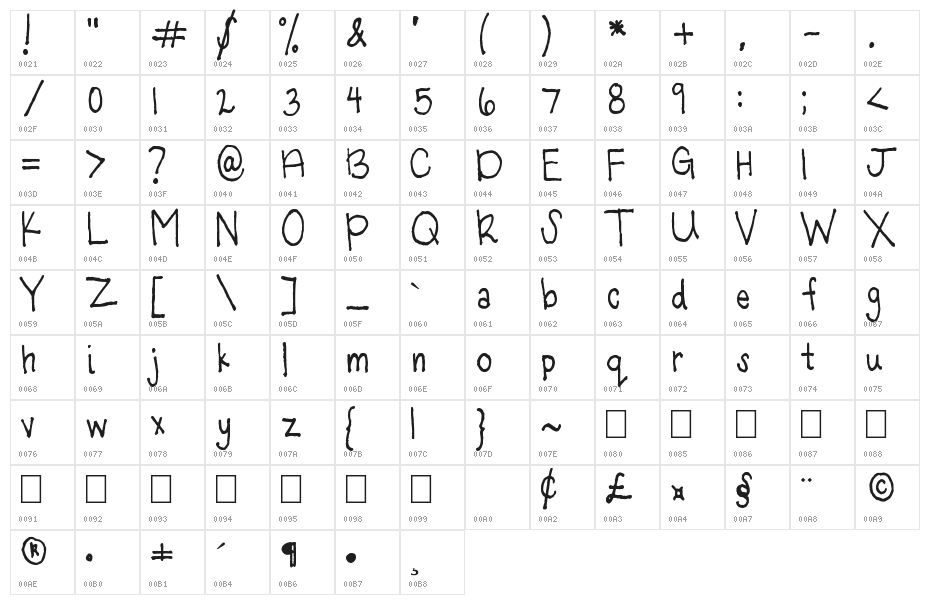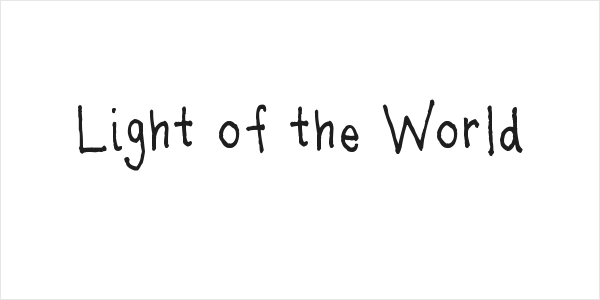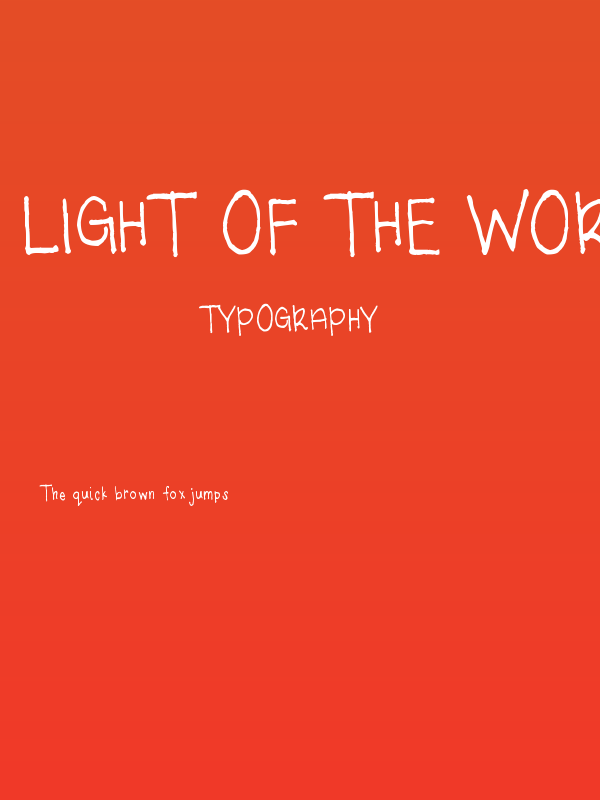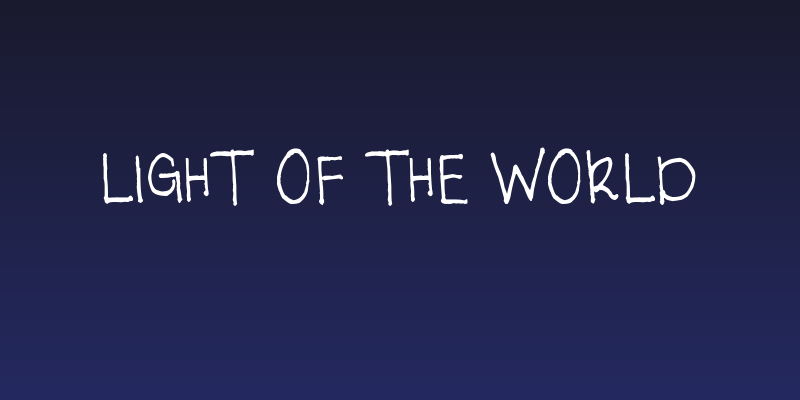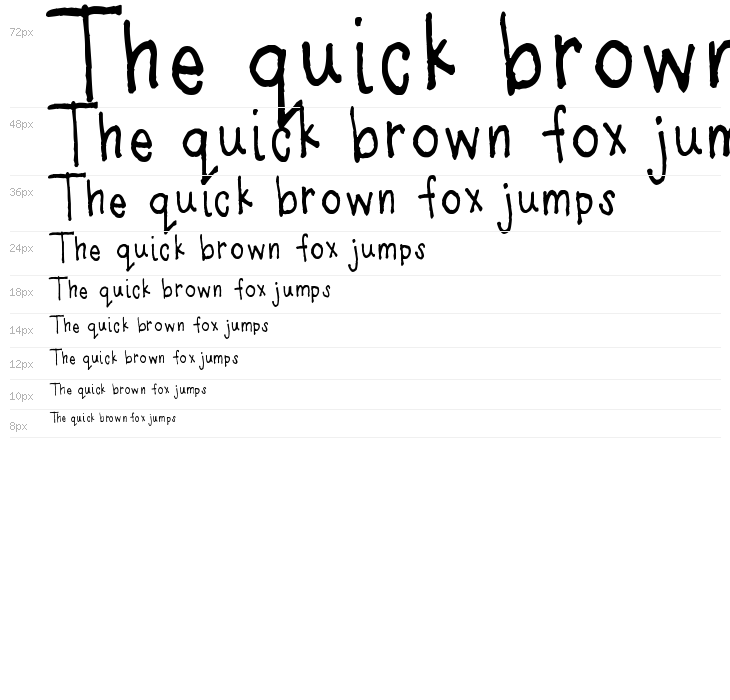
Light of the World Font
Light of the World Description
This font features a playful and hand-drawn style, characterized by its irregular strokes and whimsical appearance. The letters have a casual, organic feel, with varying line thickness that adds to its charm. The uppercase and lowercase letters maintain a consistent style, with rounded edges and a slightly uneven baseline, giving it a friendly and approachable look. The numerals and special characters follow the same aesthetic, ensuring a cohesive appearance across all text elements. This font's unique style makes it stand out, perfect for projects that require a personal touch.
| Proposed Projects | Ideal for children's books, greeting cards, casual invitations, and creative branding projects. |